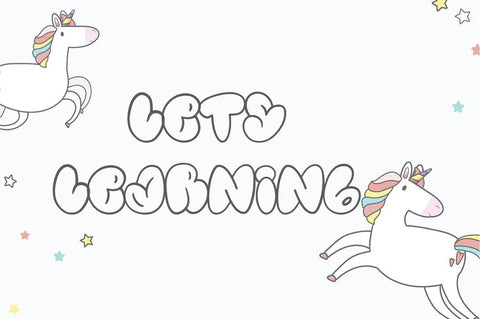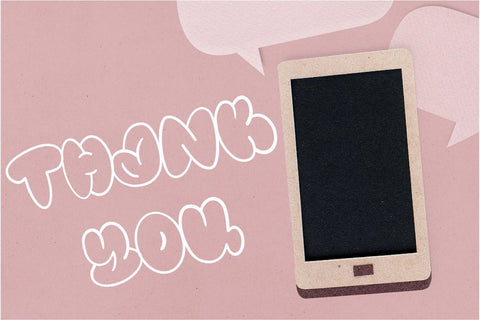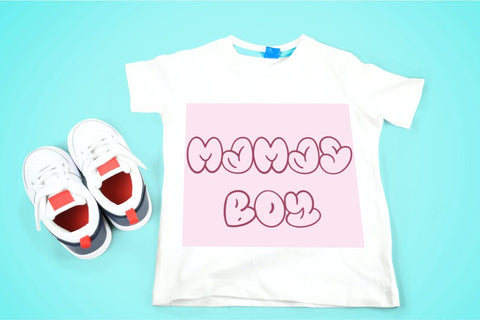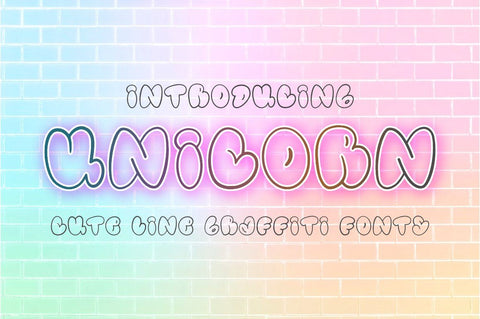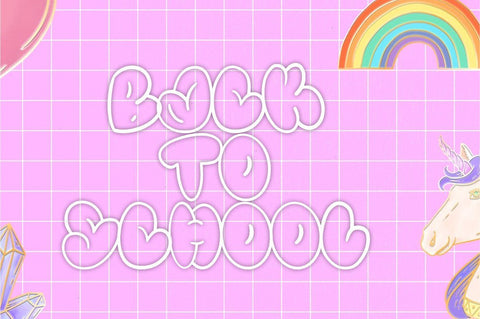
Unicorn a Cute Line Graffiti Font
Perfect font!
Love this font, it’s so unique and perfect for my crafting needs. It shows up well when I cut it on my vinyl and sublimation projects.